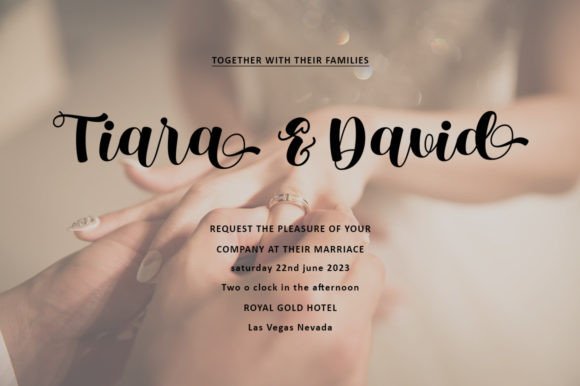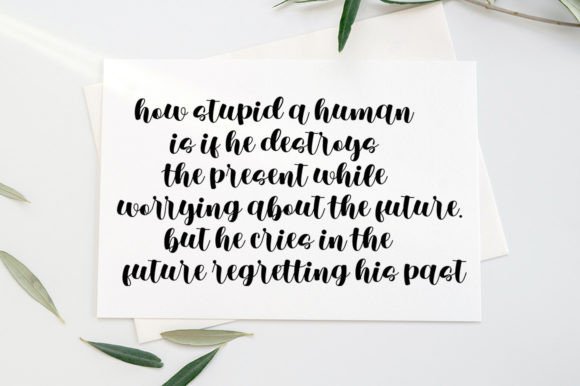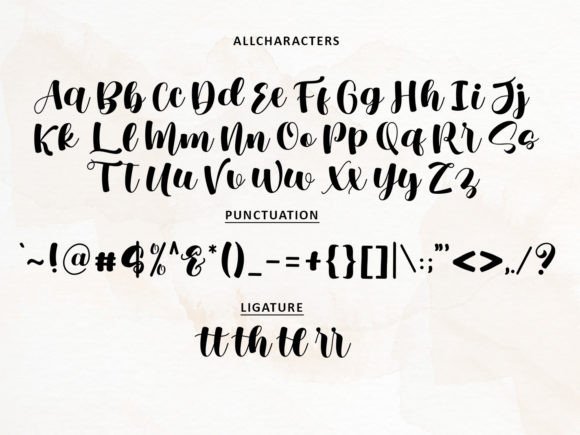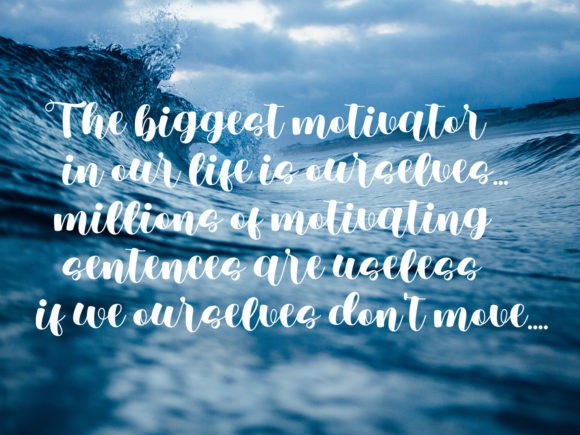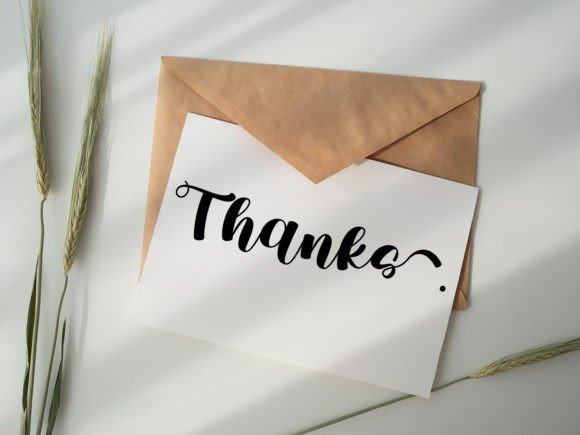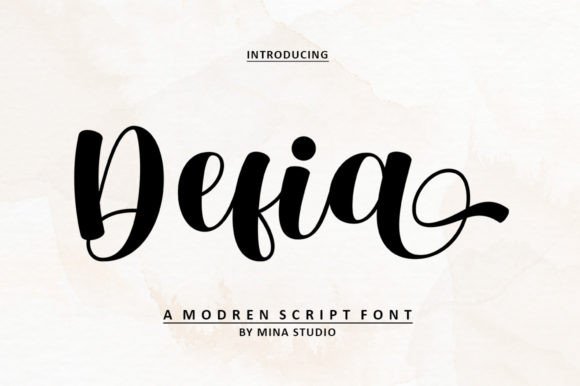
Introducing Defia Font: The Perfect Handwritten Touch for Your Designs
Are you looking for a font that exudes charm and elegance? Look no further than Defia Font. This beautiful handwritten font is perfect for adding a personal touch to your designs, making it ideal for wedding invitations, thank you cards, quotes, greeting cards, logos, business cards, and more.
The Characteristics of Defia Font
Defia Font is a carefully crafted font that boasts a unique and stylish appearance. Its elegant strokes and charming flair make it perfect for designs that require a personal and sophisticated touch. The font’s handwritten nature gives it a warm and inviting feel, making it perfect for a wide range of design applications.
Uses of Defia Font
Defia Font is an incredibly versatile font that can be used in a variety of design projects. Some of the most popular uses for this font include:
- Wedding Invitations: Add a touch of elegance and sophistication to your wedding invitations with Defia Font. Its beautiful, flowing script is perfect for formal and informal wedding invitations alike.
- Thank You Cards: Express your gratitude in style with Defia Font. This font is perfect for creating beautiful and heartfelt thank you cards for any occasion.
- Quotes: Add a touch of inspiration and motivation to your quotes with Defia Font. Its elegant script is perfect for creating stunning quote graphics for social media, blogs, and more.
- Greeting Cards: Create beautiful and personalized greeting cards for any occasion with Defia Font. From birthdays to holidays, this font is perfect for adding a touch of warmth and personality to your cards.
- Logos: Give your brand a personal and sophisticated touch with Defia Font. This font is perfect for creating unique and memorable logos for businesses, products, and services.
- Business Cards: Stand out from the crowd with Defia Font on your business cards. Its elegant script is perfect for creating professional and stylish business cards that will leave a lasting impression.
Why Choose Defia Font?
So, why choose Defia Font for your design projects? Here are just a few reasons:
- Unique and Stylish: Defia Font boasts a unique and stylish appearance that will set your designs apart from the crowd.
- Elegant and Sophisticated: This font exudes elegance and sophistication, making it perfect for formal and informal designs alike.
- Handwritten Touch: Defia Font’s handwritten nature gives it a warm and inviting feel that’s perfect for adding a personal touch to your designs.
- Versatile: This font is incredibly versatile and can be used in a wide range of design applications.
Tips for Using Defia Font
Here are a few tips for getting the most out of Defia Font:
- Pair with Other Fonts: Defia Font pairs perfectly with other fonts, so don’t be afraid to experiment with different combinations.
- Use for Headings and Titles: This font is perfect for headings and titles, so use it to add a touch of elegance and sophistication to your designs.
- Experiment with Colors: Defia Font looks stunning in a variety of colors, so experiment with different hues to find the perfect look for your design.
In conclusion, Defia Font is a beautiful and versatile font that’s perfect for adding a handwritten touch to your designs. Its elegant strokes and charming flair make it ideal for a wide range of design applications, from wedding invitations to logos and business cards. So why not give Defia Font a try and see the difference it can make in your designs?